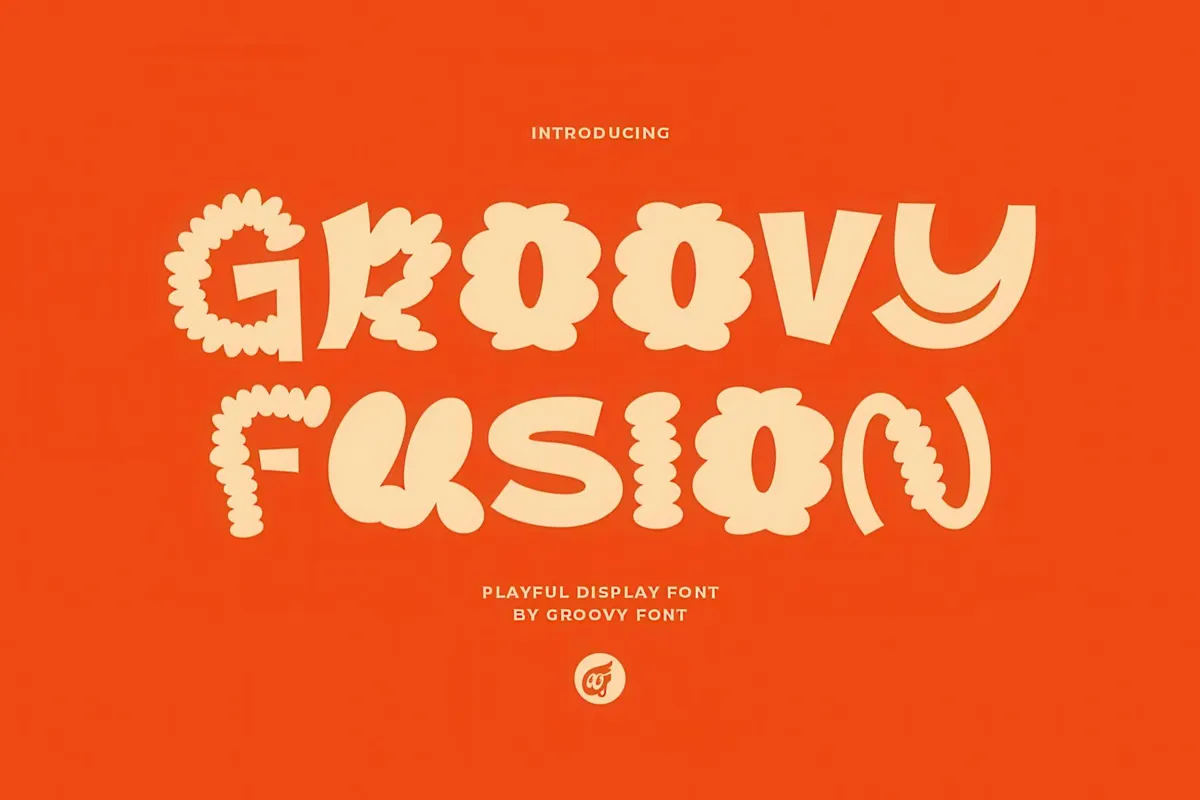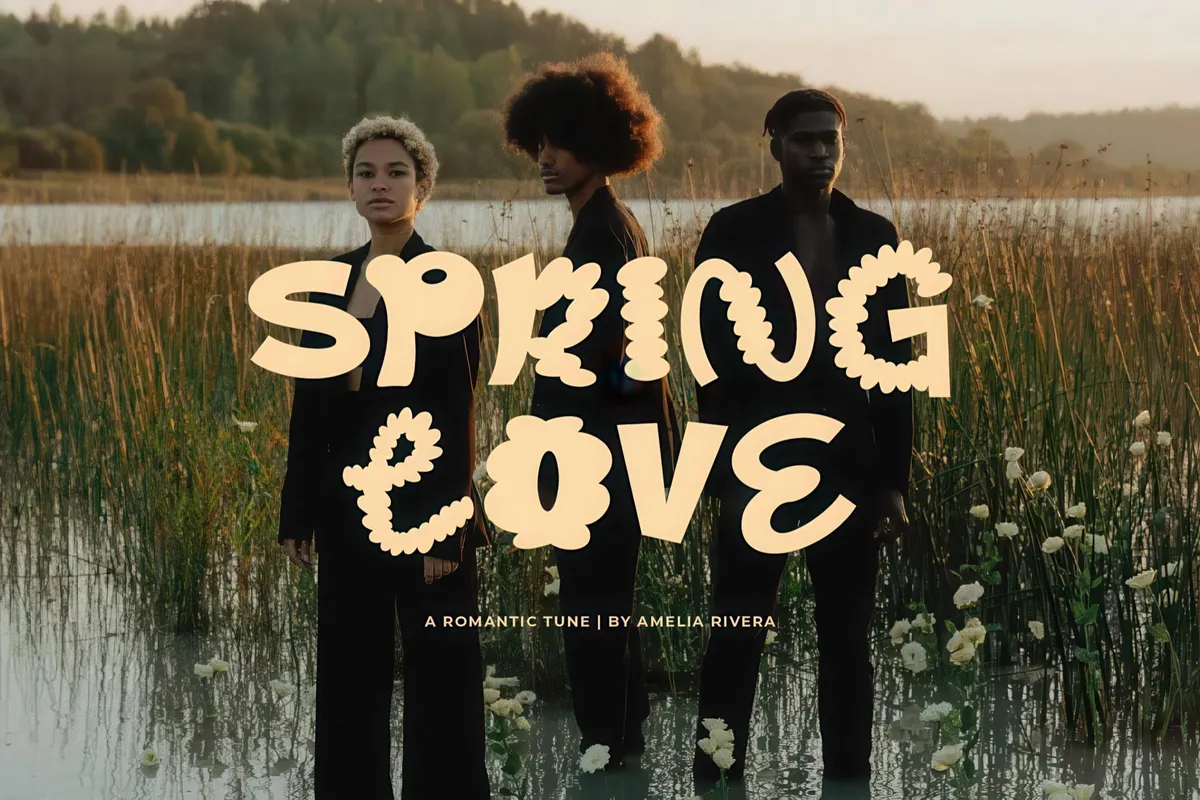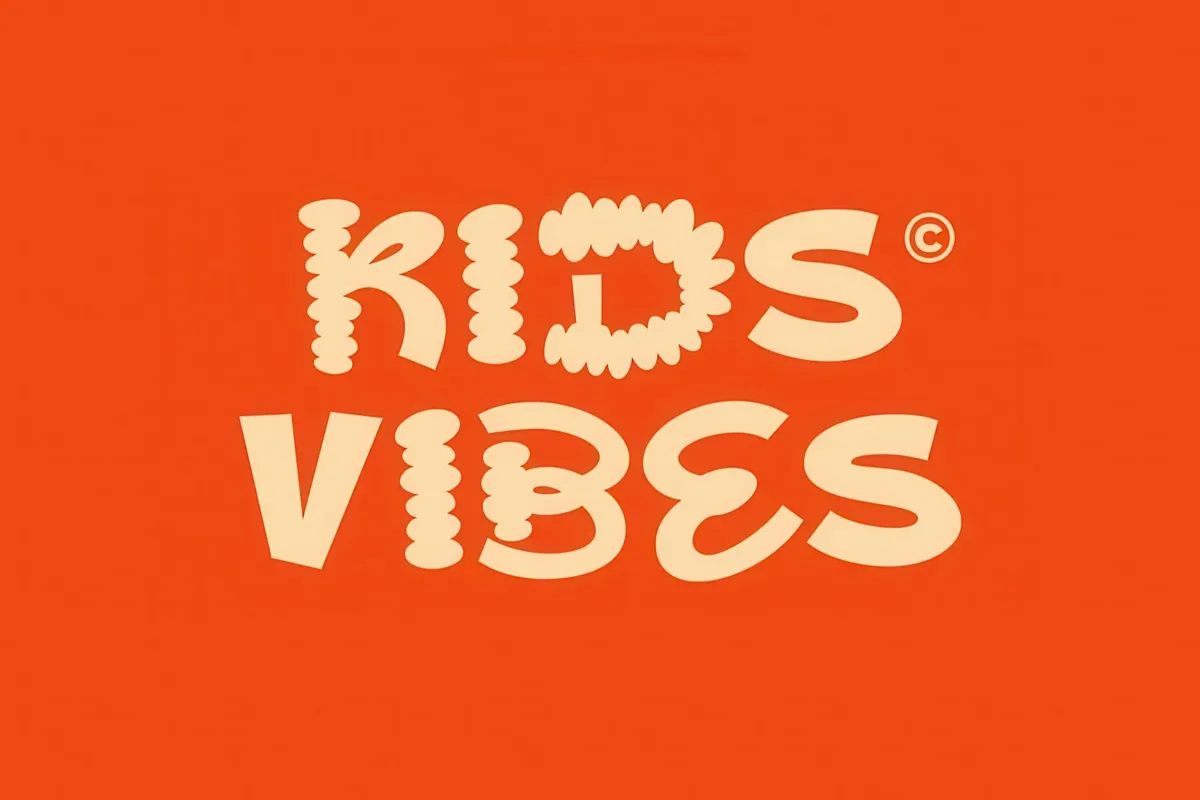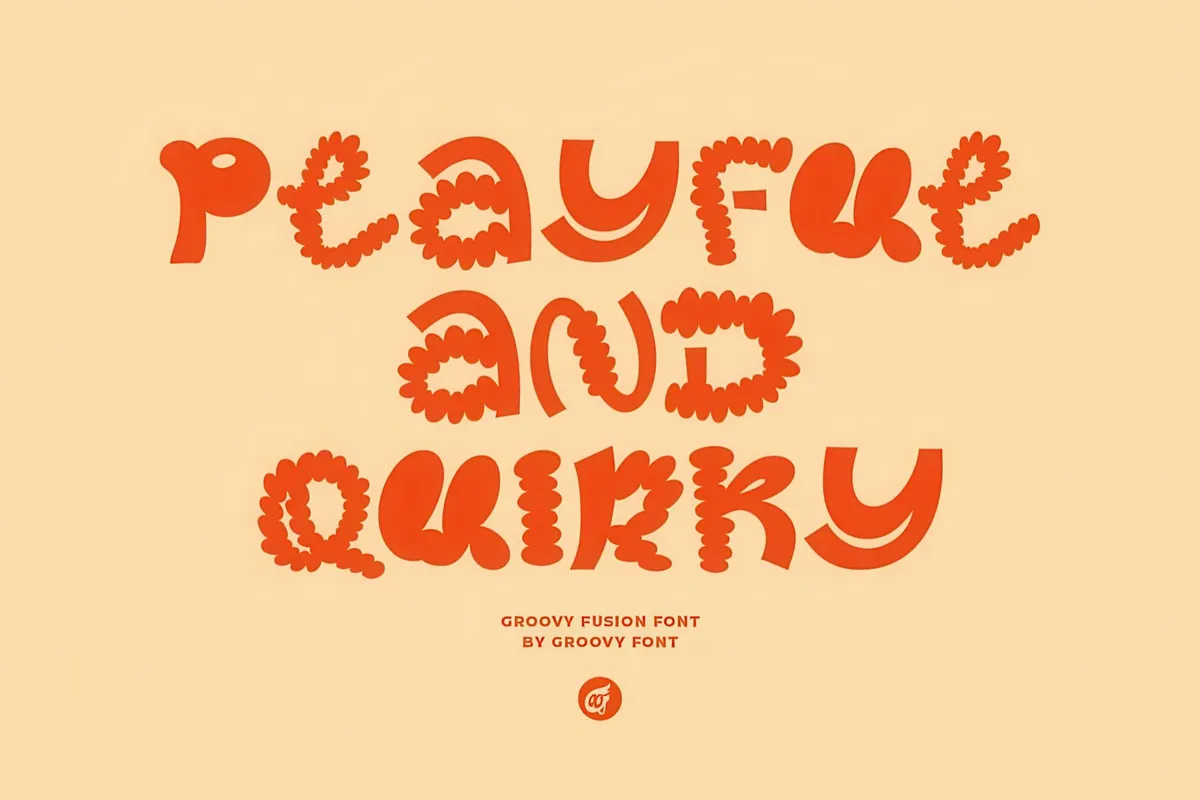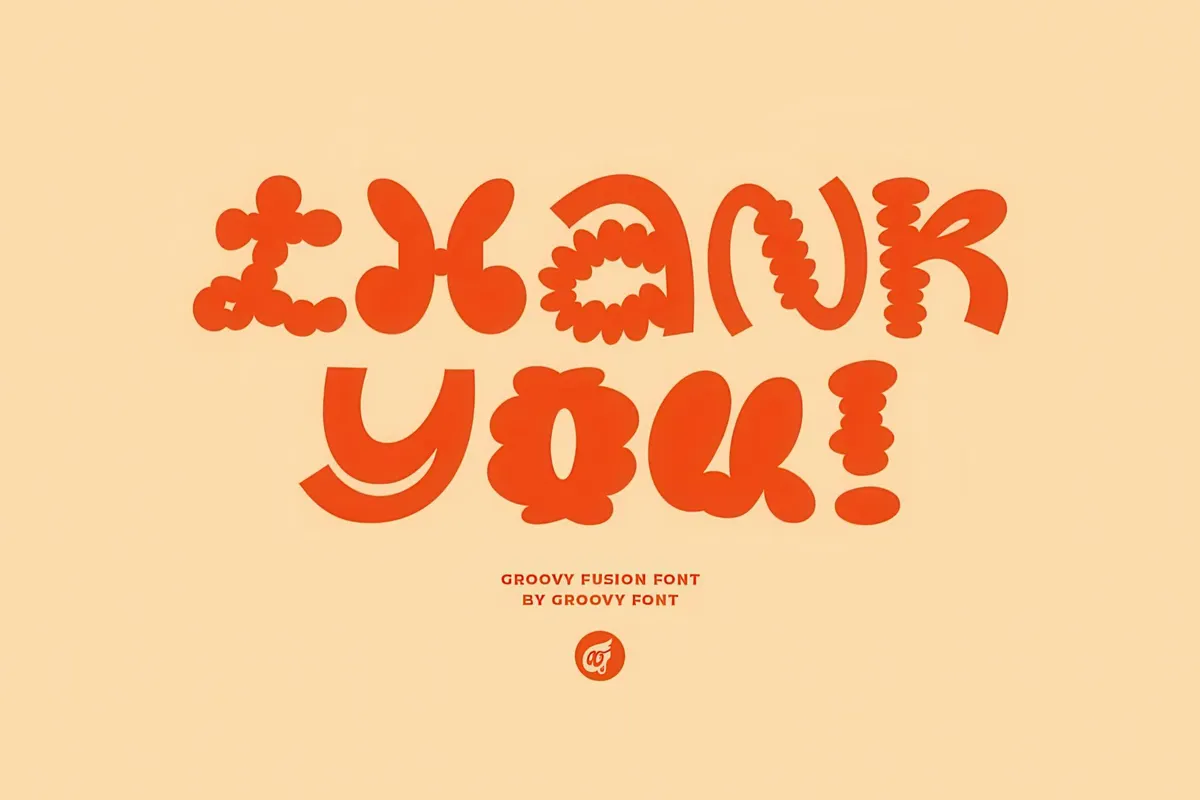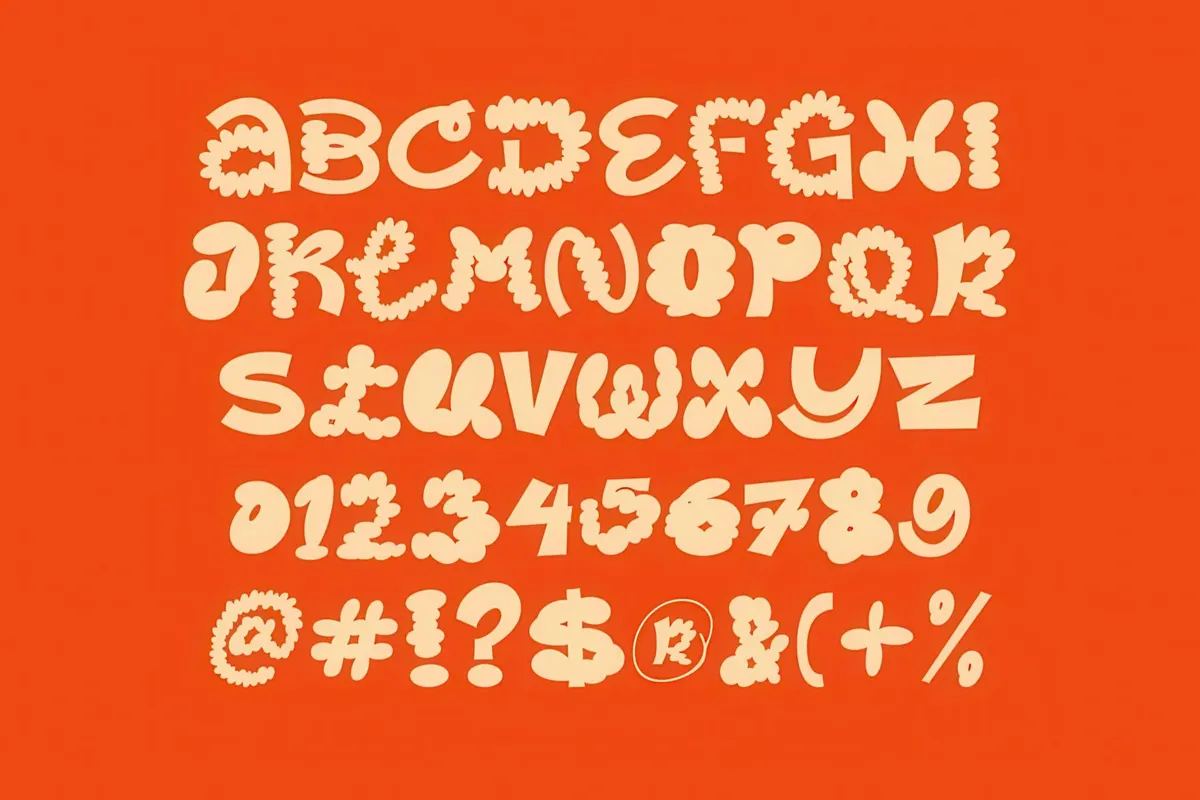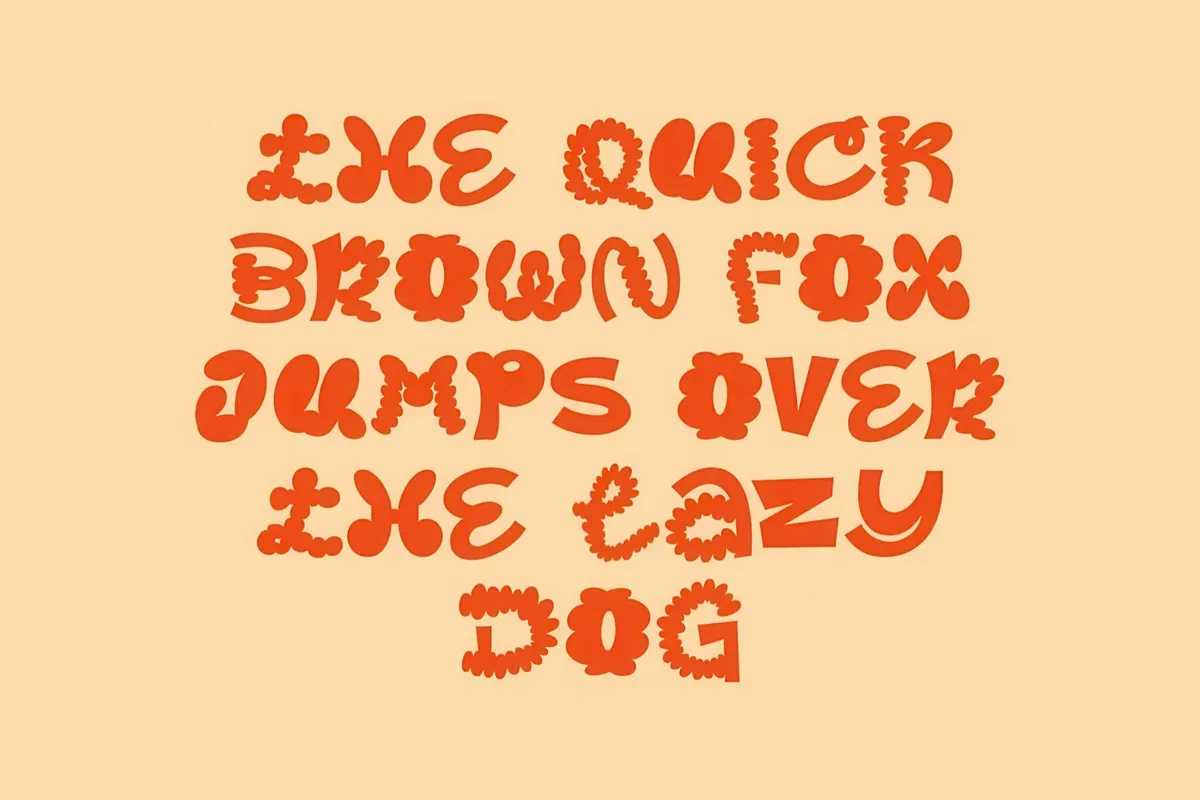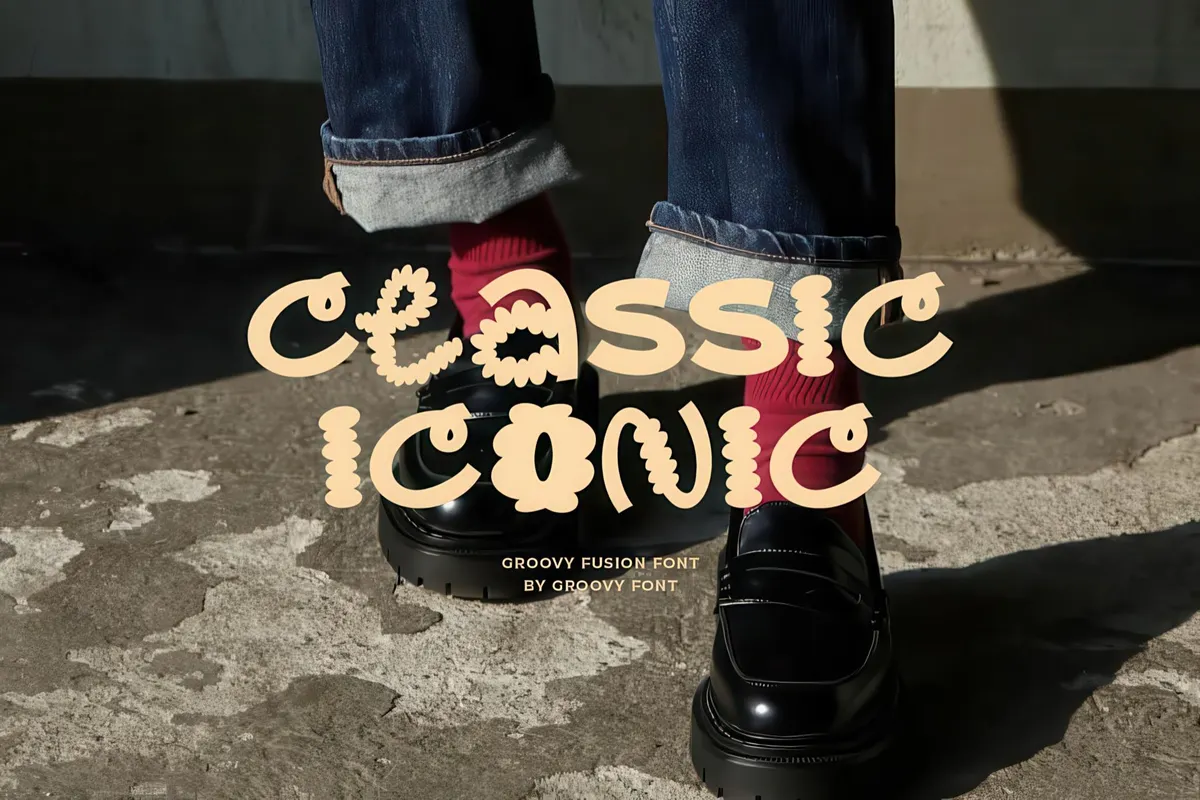
Groovy Fusion Font
Nostalgia? Nah, it's retromania, but with a whole new look! We're bringing back the funky, free-spirited vibes of the '70s with Groovy Fusion. But let's highlight: it's A LOT more than just a hippie font with a VW Type 2 spirit.
Oh, that's true; Groovy Fusion has a solid retro message, yet a dash of quirk and plenty of playfulness. It's like peace, love, and flower power all rolled into a font, ready to spread good vibes across your designs. It has uppercase and lowercase letters, numerals, punctuation, and multilingual support. Every letter has its unique twist (From chunky, cloud-like shapes to more structured ones) for a hand-drawn, sketchy vibe that adds character to your designs. Groovy Fusion feels like a party on the page, so do use it for cartoon logos, kids' projects, posters, and anything that needs a pop of playful energy.